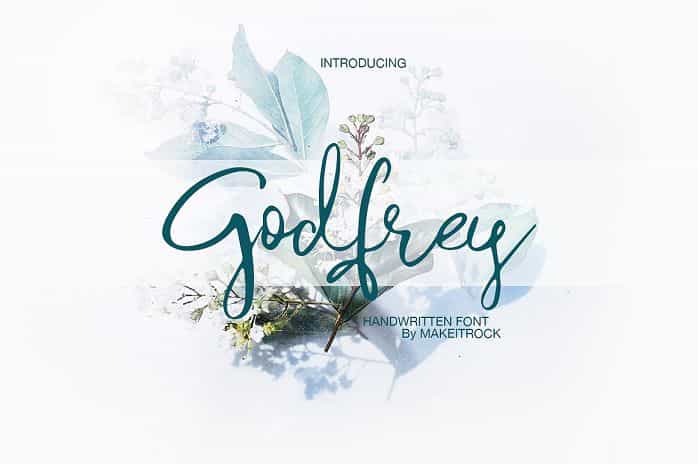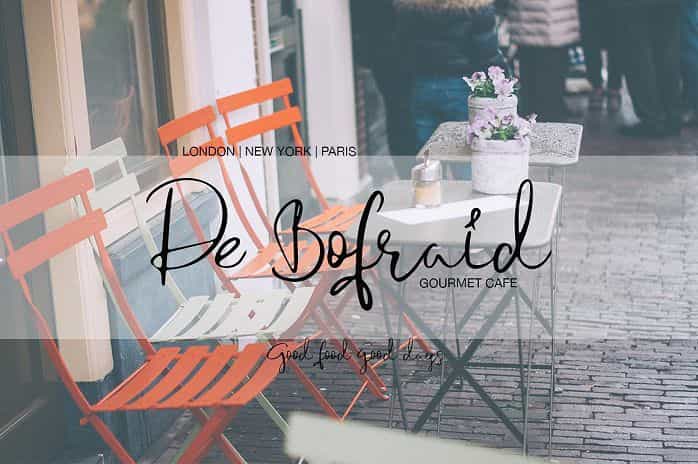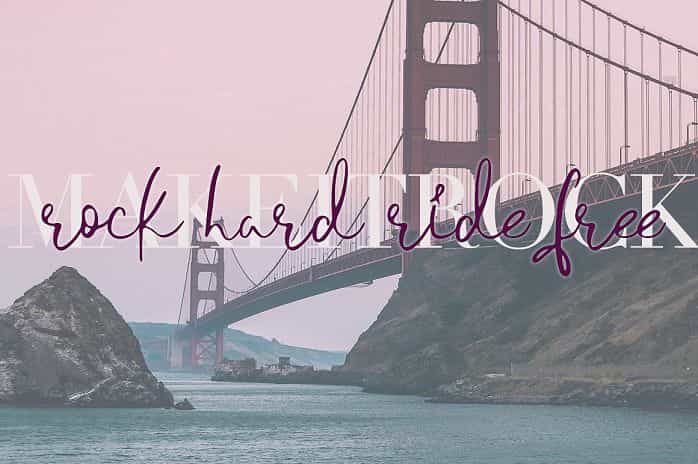
Godfrey Script Font
Discover Godfrey Script Font, part of the  Brush Calligraphy  Handwritten collection—a versatile and unique font perfect for adding a personal touch to your projects. Download it for free and enjoy crafting designs with style, from invitations to social media posts. This font is available exclusively for personal use, giving you the freedom to create without limits. Unlock your creativity with Godfrey Script Font today!
Introducing Godfrey – A new fresh handmade summer loving calligraphy font. It is created and posted by Makeitrock. A perfect way to express your feelings on greeting cards, branding materials, business cards, quotes, posters and so much more!These fonts are just right for the wedding postcard. Or, you can make a perfectly and exclusively designed logo for your blog, stationery, marketing materials and more…